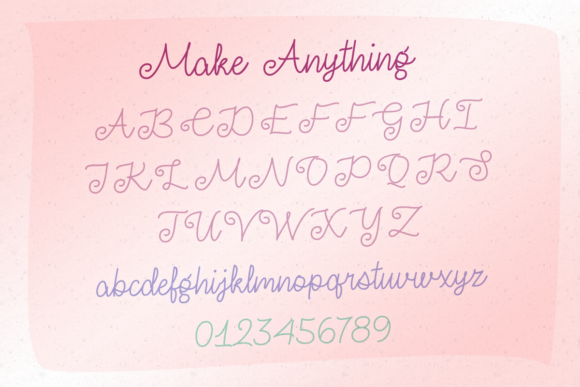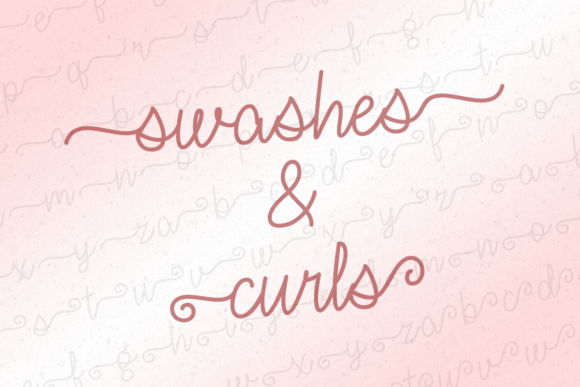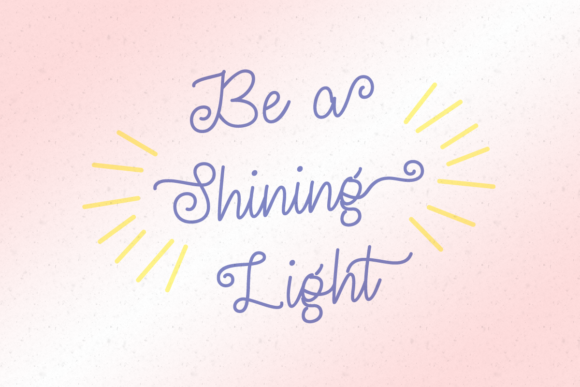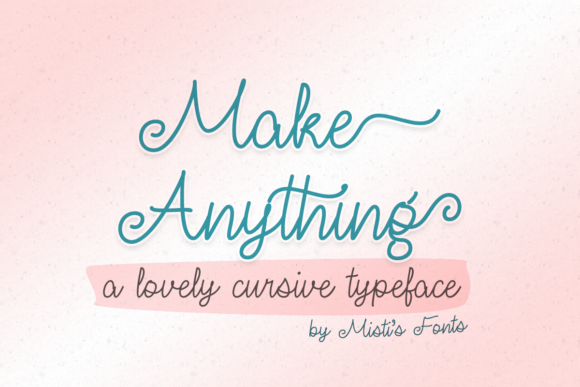
Introduction to Make Anything Font
Make Anything is a magical handwritten font carefully created with a touch of elegance.
This is a beautiful combination of timeless elegance and authentic calligraphy It features an incredibly classic style, while still keeping a friendly feel.